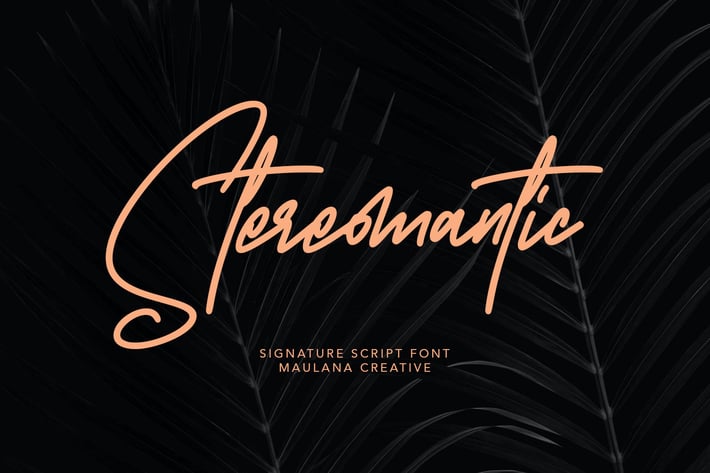
Stereomantic Signature Brush Font
Give your designs an authentic brush handcrafted feel. Stereomantic is perfectly suited to signature, stationery, logo, typography quotes, magazine or book cover, website header, flyer, clothing, branding, packaging design and more.